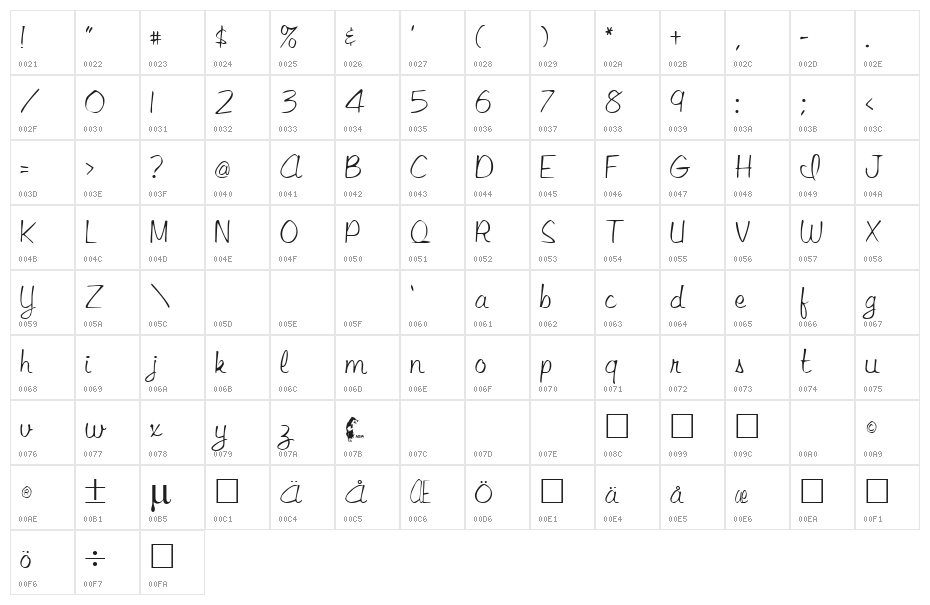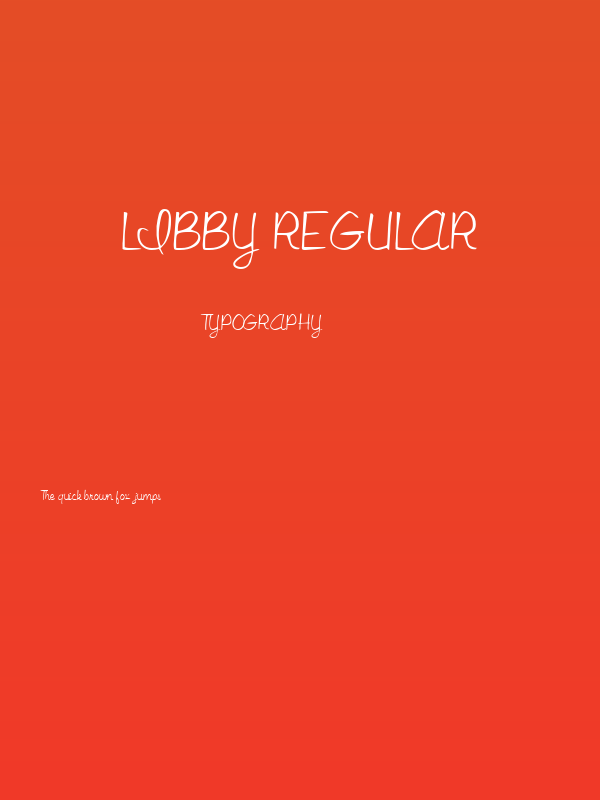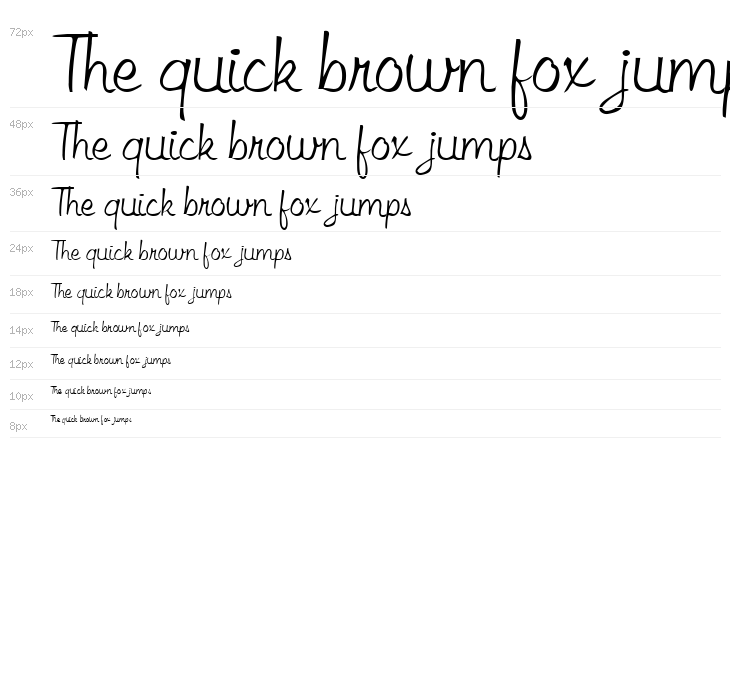
Libby Regular Font
Libby Regular Description
This font exhibits a playful and casual handwritten style, characterized by its flowing, cursive-like strokes. The letters are slightly slanted, giving a sense of motion and informality. Uppercase letters are bold and prominent, while lowercase letters maintain a consistent, smooth flow. The numerals are distinct and easy to read, matching the overall whimsical aesthetic. Special characters are creatively integrated, maintaining the font's unique style. The overall appearance is approachable and friendly, making it suitable for a variety of informal applications.
| Proposed Projects | Ideal for greeting cards, invitations, personal branding, and creative projects that require a friendly, informal touch. |